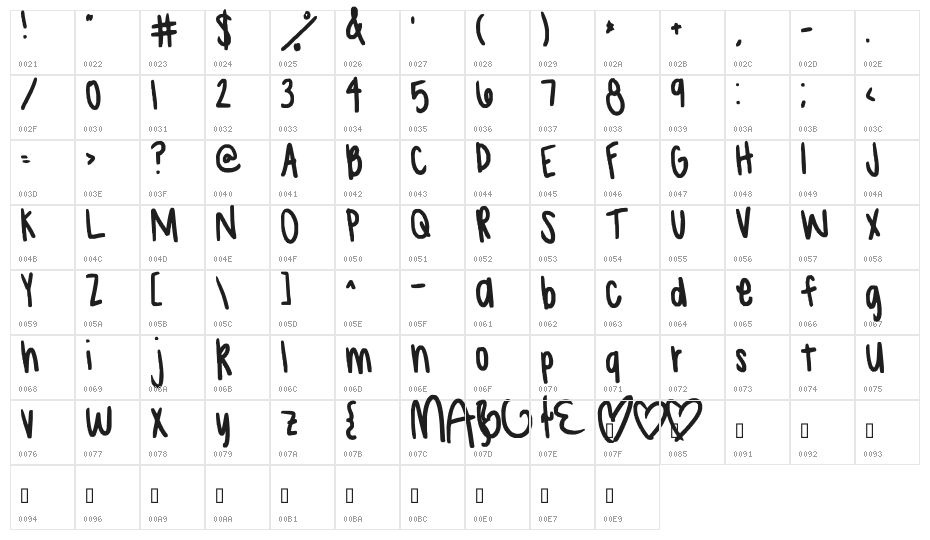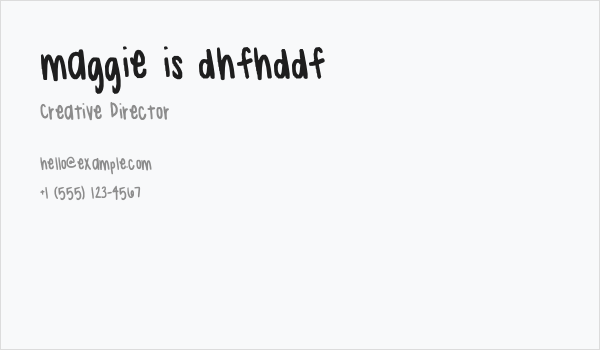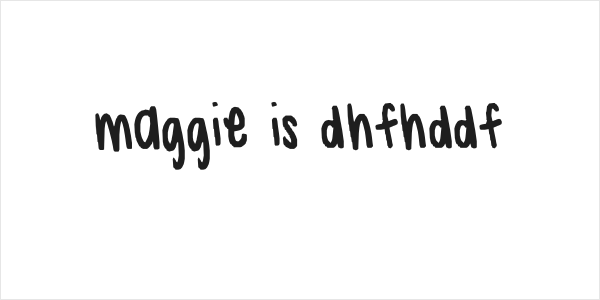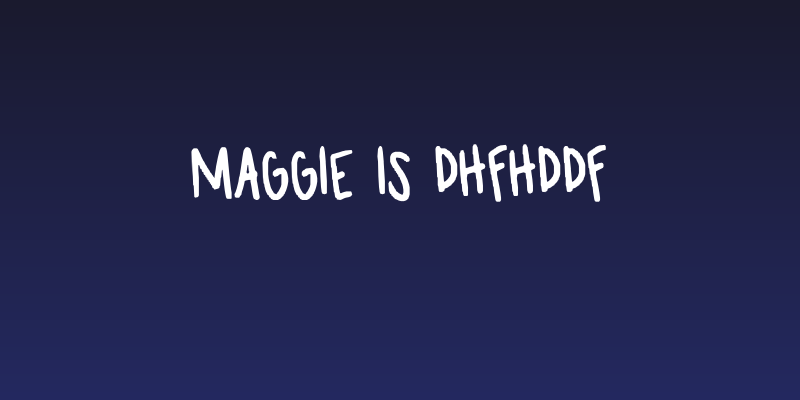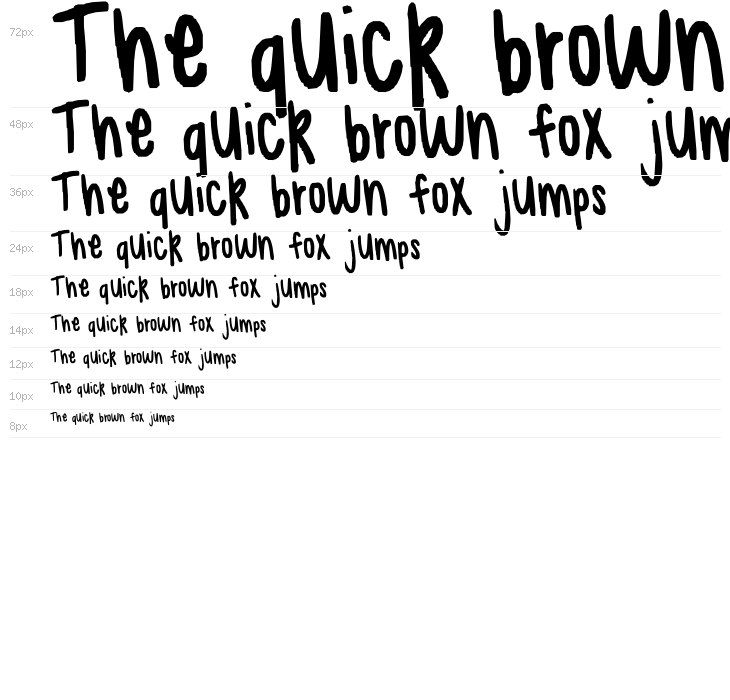
maggie is dhfhddf Font
maggie is dhfhddf Description
This font exhibits a playful and informal handwritten style, characterized by its bold and slightly irregular strokes. The letters are crafted with a casual flair, giving each character a unique and personal touch. The uppercase and lowercase letters maintain a consistent style, with rounded edges and varying stroke thicknesses that add to its charm. Numbers and special characters follow the same aesthetic, ensuring a cohesive look across all glyphs. The font's organic and spontaneous appearance makes it ideal for projects that require a personal or whimsical touch.
| Proposed Projects | Ideal for greeting cards, children's books, playful branding, and casual invitations. |